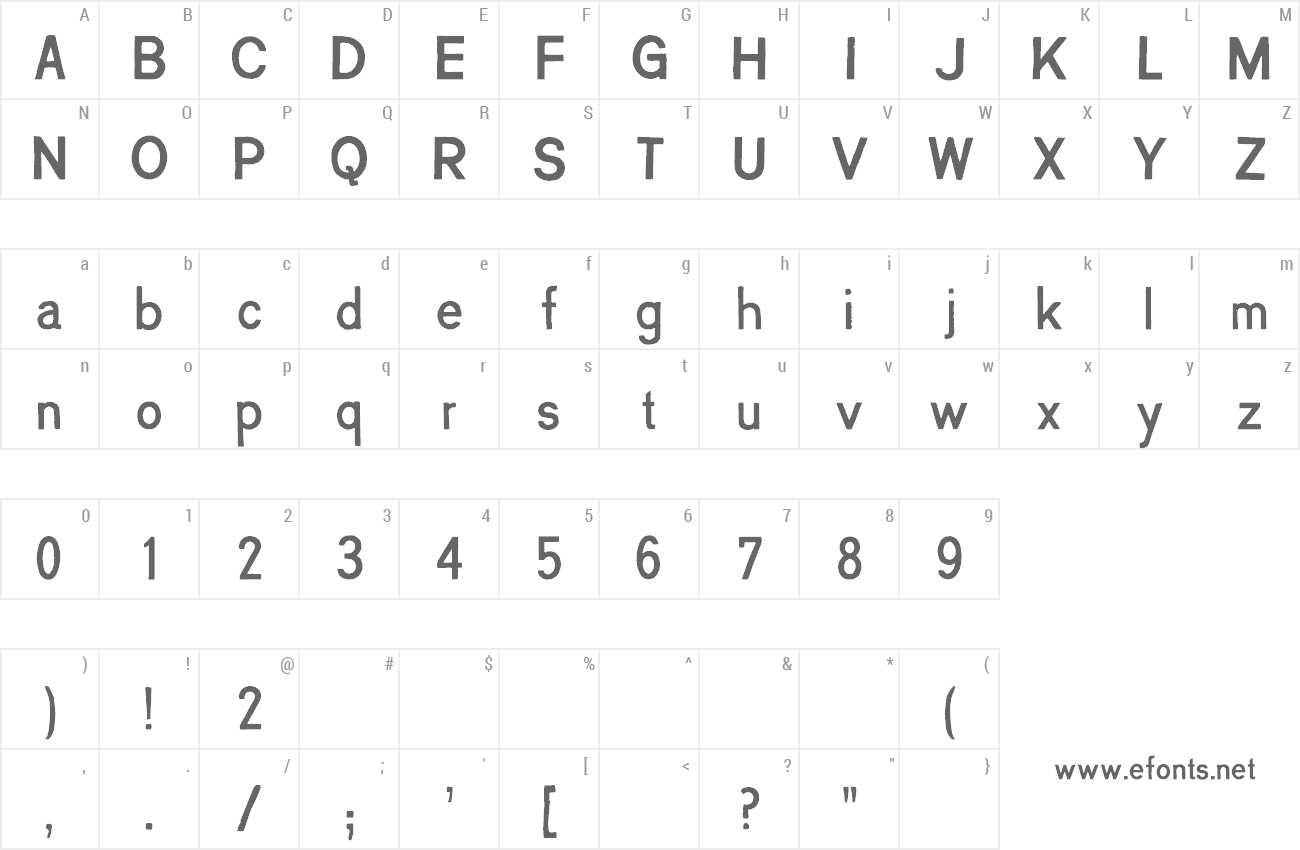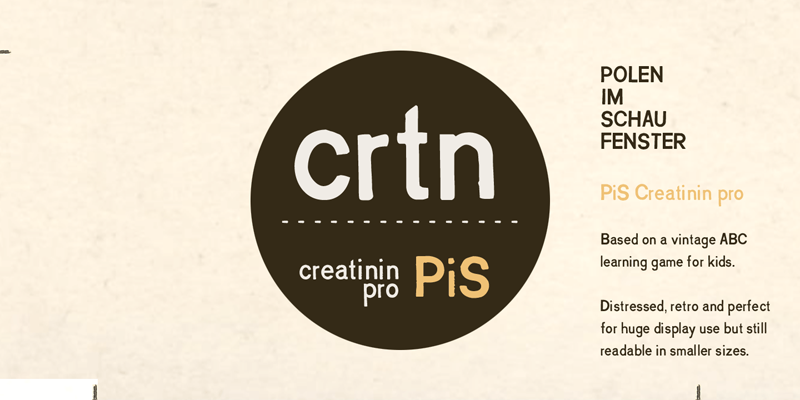
An updated version of an old polenimschaufenster classic, based on letters from an old ABC game for kids. Please note that this font is free for personal use only. For commercial use: Get the updated Creatinin PRO at myfonts.com! http://www.myfonts.com/fonts/polenimschaufenster/pis-creatinin-pro/ |